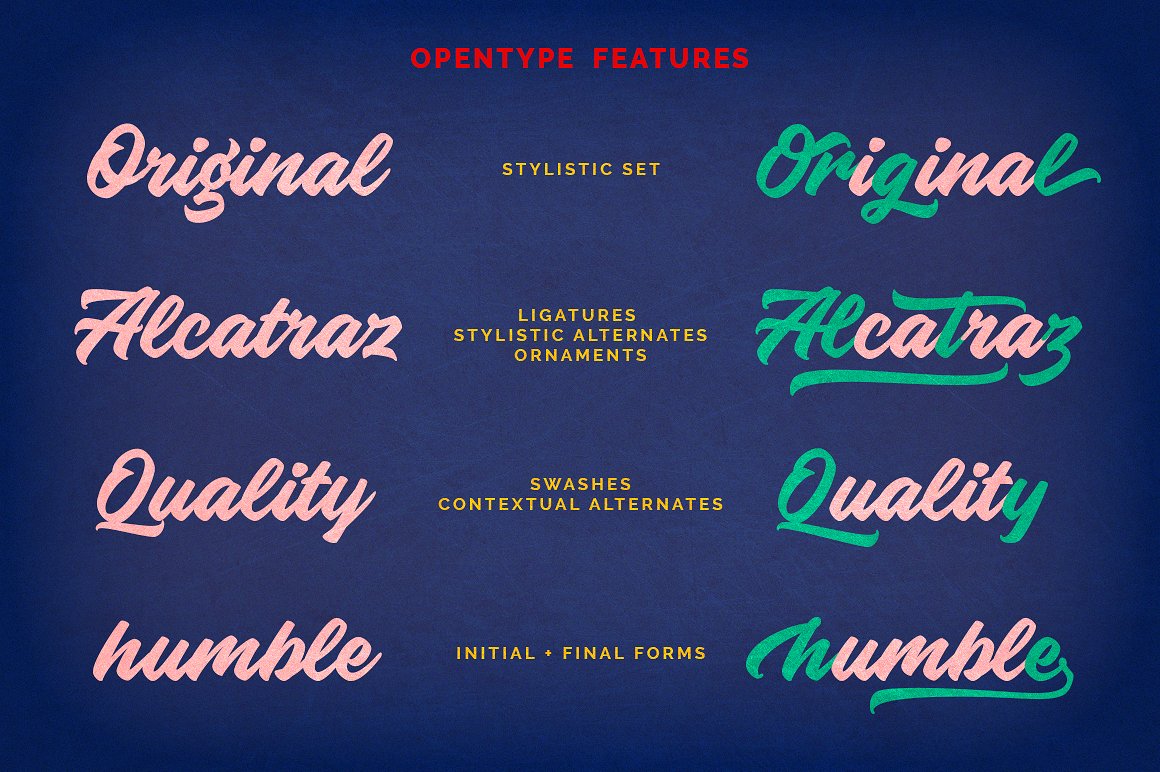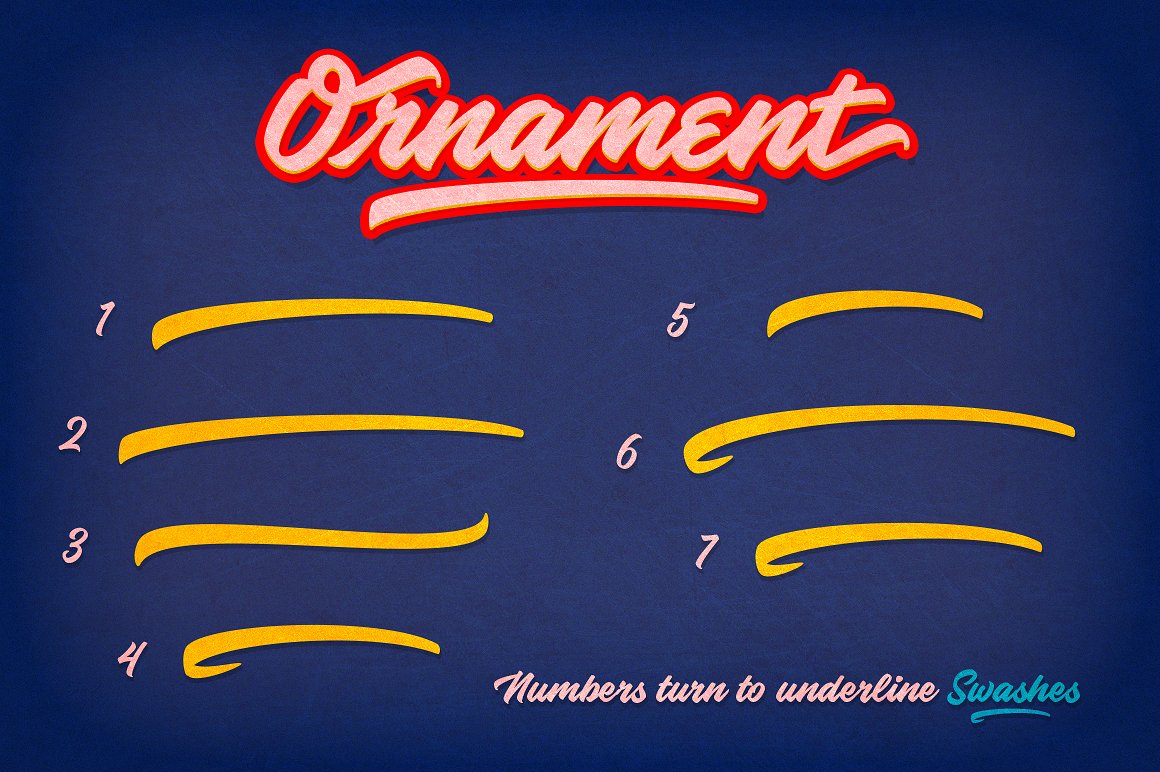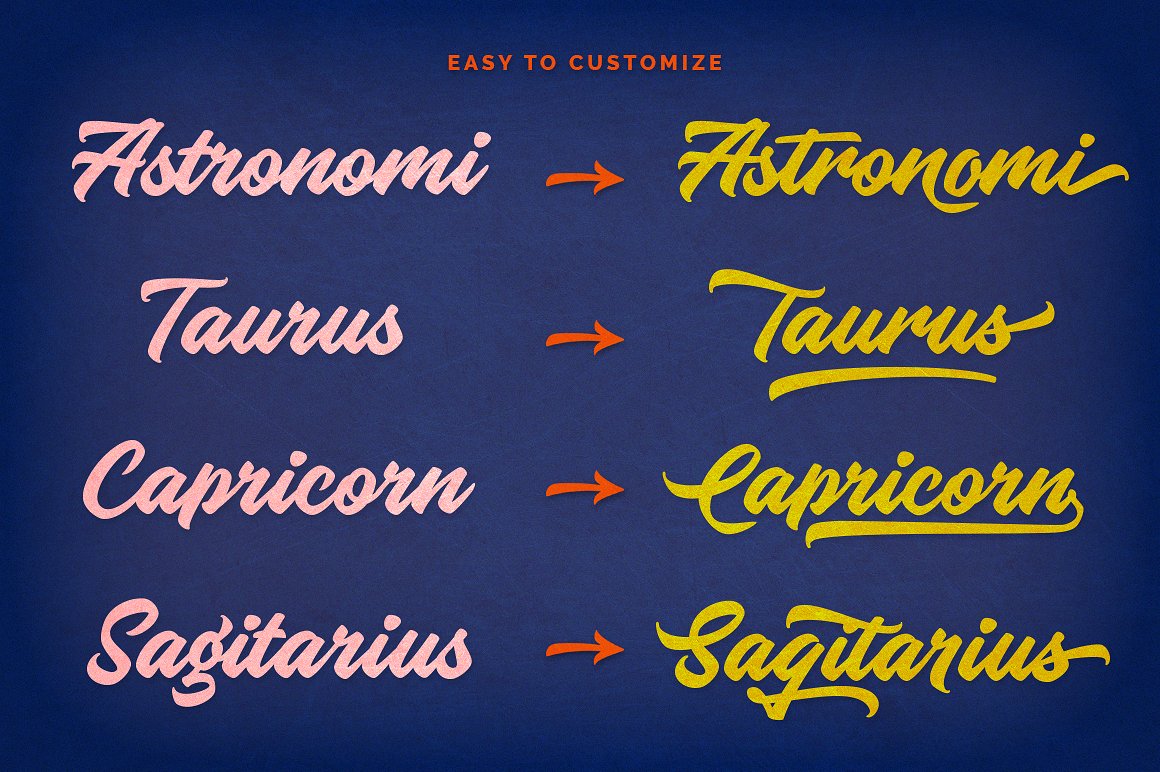
Introduction to Knight Brush Font
Have you ever stared at a blank canvas, trying to bring your creative project to life? The blank space can be intimidating, but the right design resource can spark inspiration. For designers, finding the perfect font can be a game-changer, elevating a simple design to a stunning masterpiece. This is where the Knight Brush Font comes in – a free download that’s about to revolutionize your creative process.
With its vintage storefront-inspired design, Knight Brush Font is an extremely adaptable font that resembles brush painting. This strong signage script is not only glamorous but also strong, making it a necessity to any font collection. Whether you’re working on a high-quality design project or need a reliable design resource, Knight Brush Font is the perfect choice.
Key Features of Knight Brush Font
- Unique, hand-drawn design with a medieval flair, perfect for creative projects that require a touch of elegance and sophistication.
- Includes a wide range of characters, including uppercase and lowercase letters, numbers, and punctuation marks, making it suitable for various creative projects.
- Features a bold, yet elegant style, making it perfect for use in logos, typography, and other design elements where a strong, medieval-inspired look is desired.
Honest Review: Knight Brush Font
I recently stumbled upon the Knight Brush Font, and I have to say, it’s a lovely addition to any design project. ✨ The font is perfect for creating a unique, hand-drawn look that adds character to your work.
The high quality of the font is evident in its smooth lines and subtle imperfections, giving it a truly hand-drawn feel. ✨ It’s perfect for creating custom logos, branding materials, or even illustrations.
- Unique, hand-drawn look
- High quality and smooth lines
- May not be suitable for professional or formal projects
- Not as versatile as some other fonts
- Some users may find the imperfections distracting
Overall, I think the Knight Brush Font is a great addition to any design library. It’s perfect for personal projects or small businesses looking for a unique touch. Just be aware of its limitations, and use it wisely. ✨
Tips for Getting the Most Out of Knight Brush Font
Use the font in combination with other design elements to create a unique and eye-catching design. Experiment with different font sizes and colors to get the most out of the font.
The Knight Brush Font is ideal for creative projects, such as graphic design, illustration, and typography. It’s also perfect for creating custom graphics, logos, and branding materials.